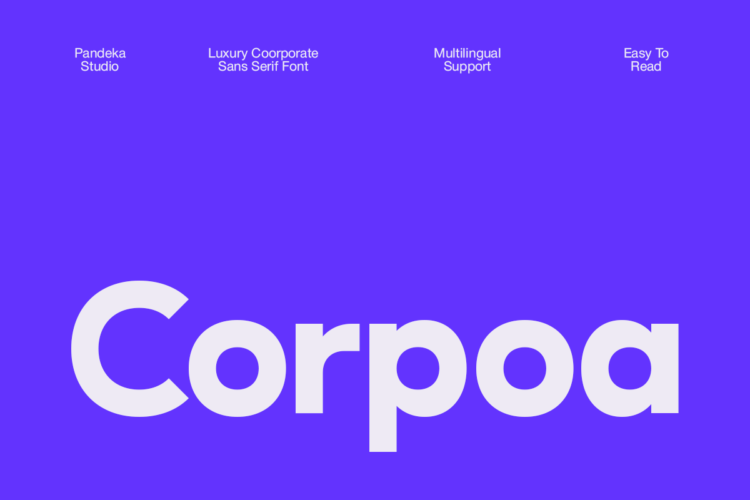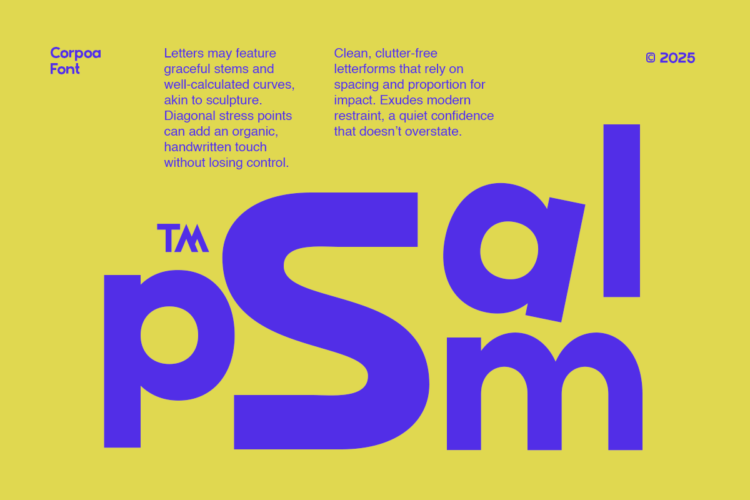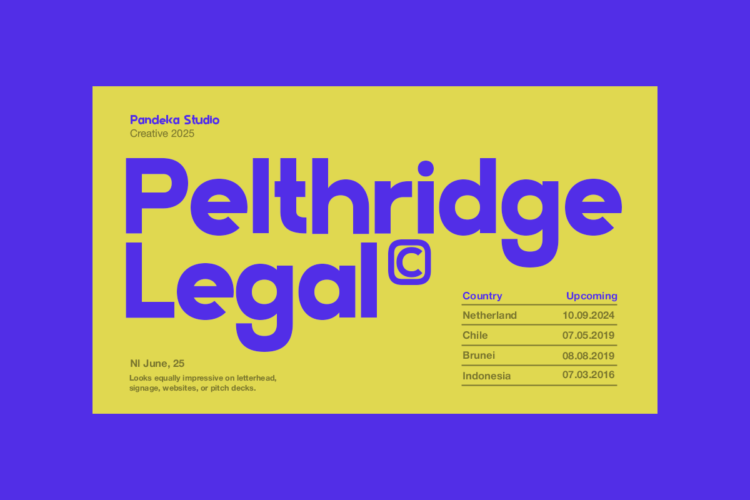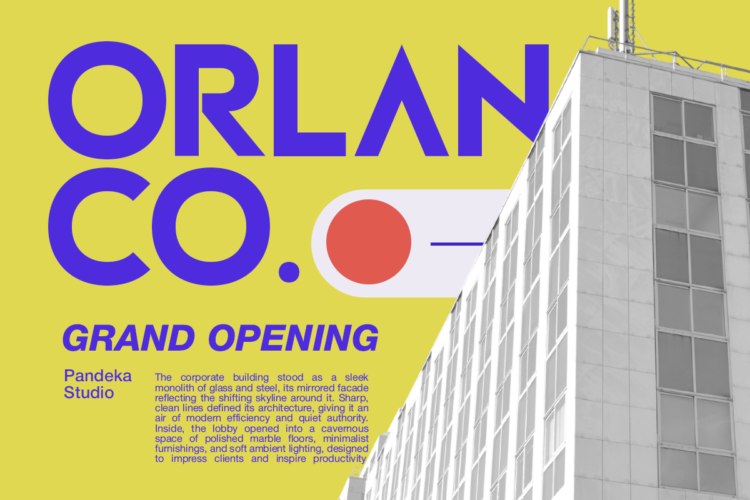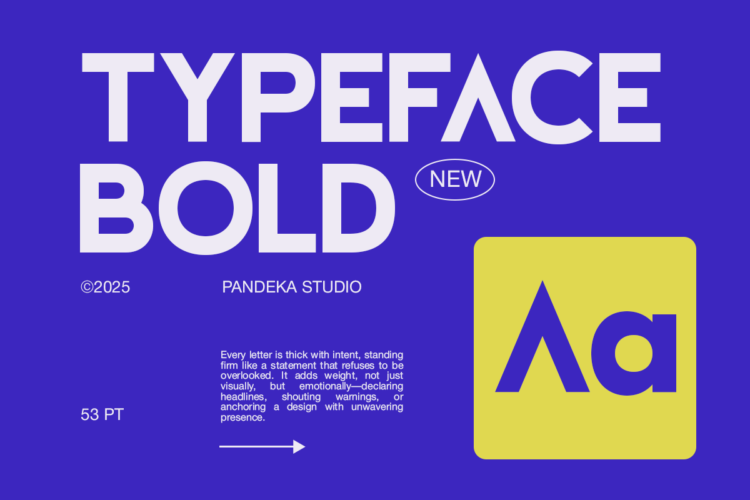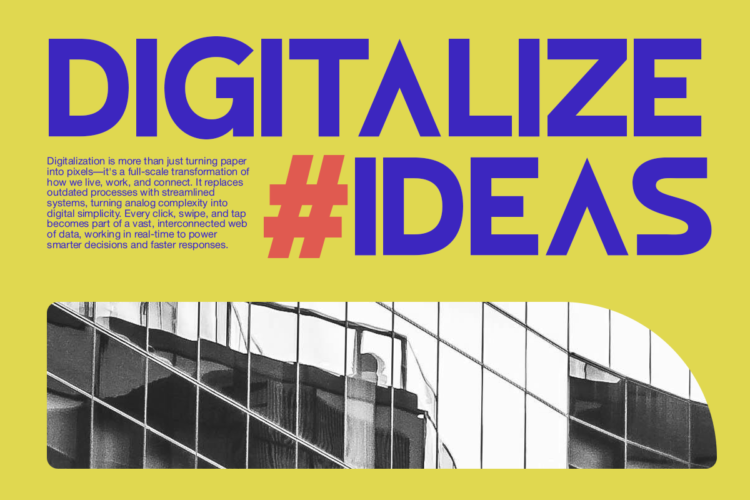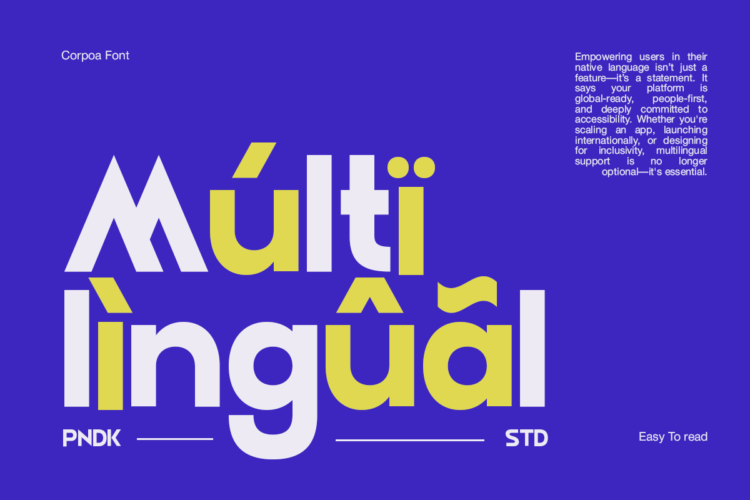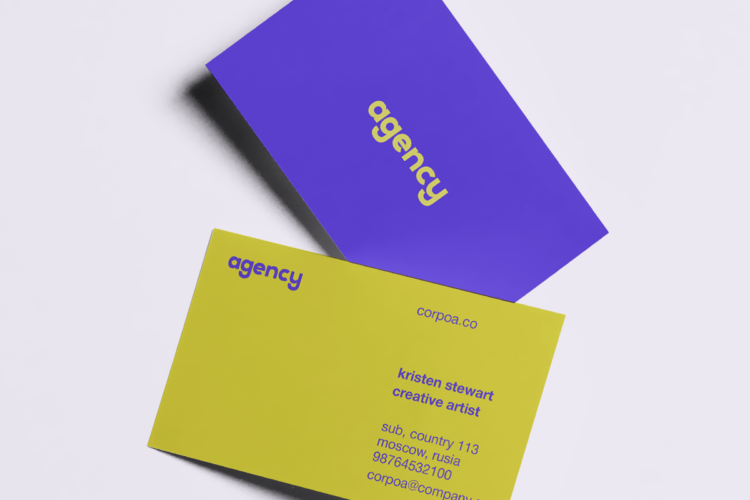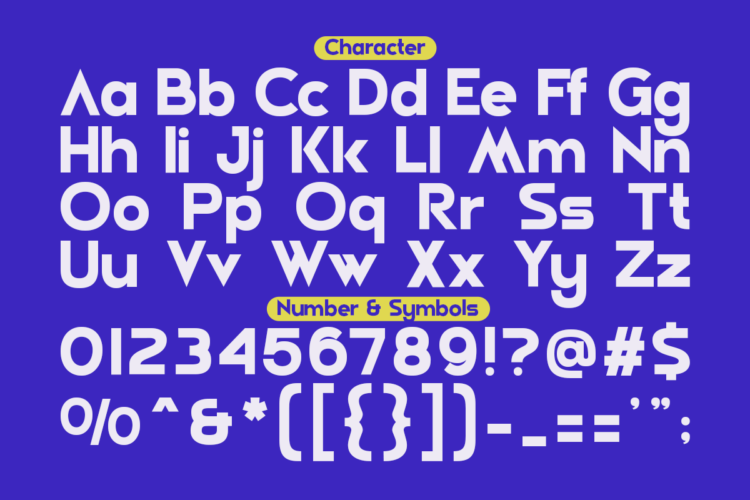
Corpoa
Corpoa is a contemporary rounded sans-serif font that fuses bold character with a friendly, approachable tone. Its soft terminals and geometric structure give it a versatile look that works seamlessly in both print and digital settings.
Ideal for branding, editorial layouts, posters, marketing materials, startups, and corporate identity, Corpoa offers a striking balance between legibility and personality. Bold without being aggressive, and modern without being cold, Corpoa is perfect for companies or designers who want to make a bold, clean statement with a human touch.
Designed to work across borders, Corpoa supports diverse alphabets and smooth, clean typographic detail.